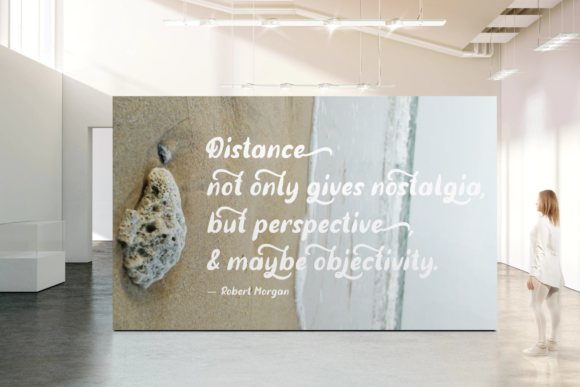
Sotis Font
About Sotis Font
The Sotis is a strong and bold script font. It includes amazing swashes which will give your design a luxurious, yet striking feel.
Included are a regular and italic font which can be used to make various unique designs, with just this one download.